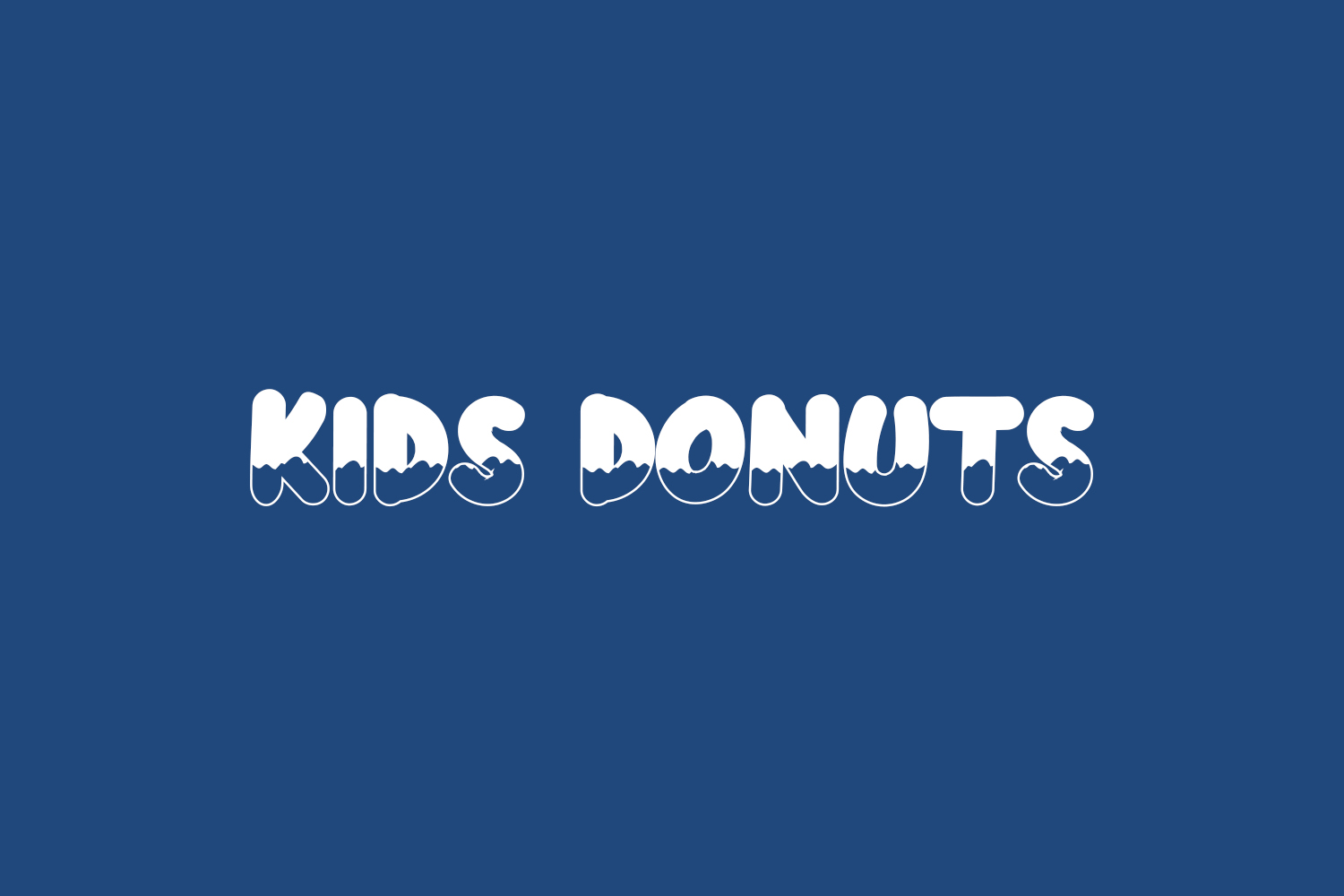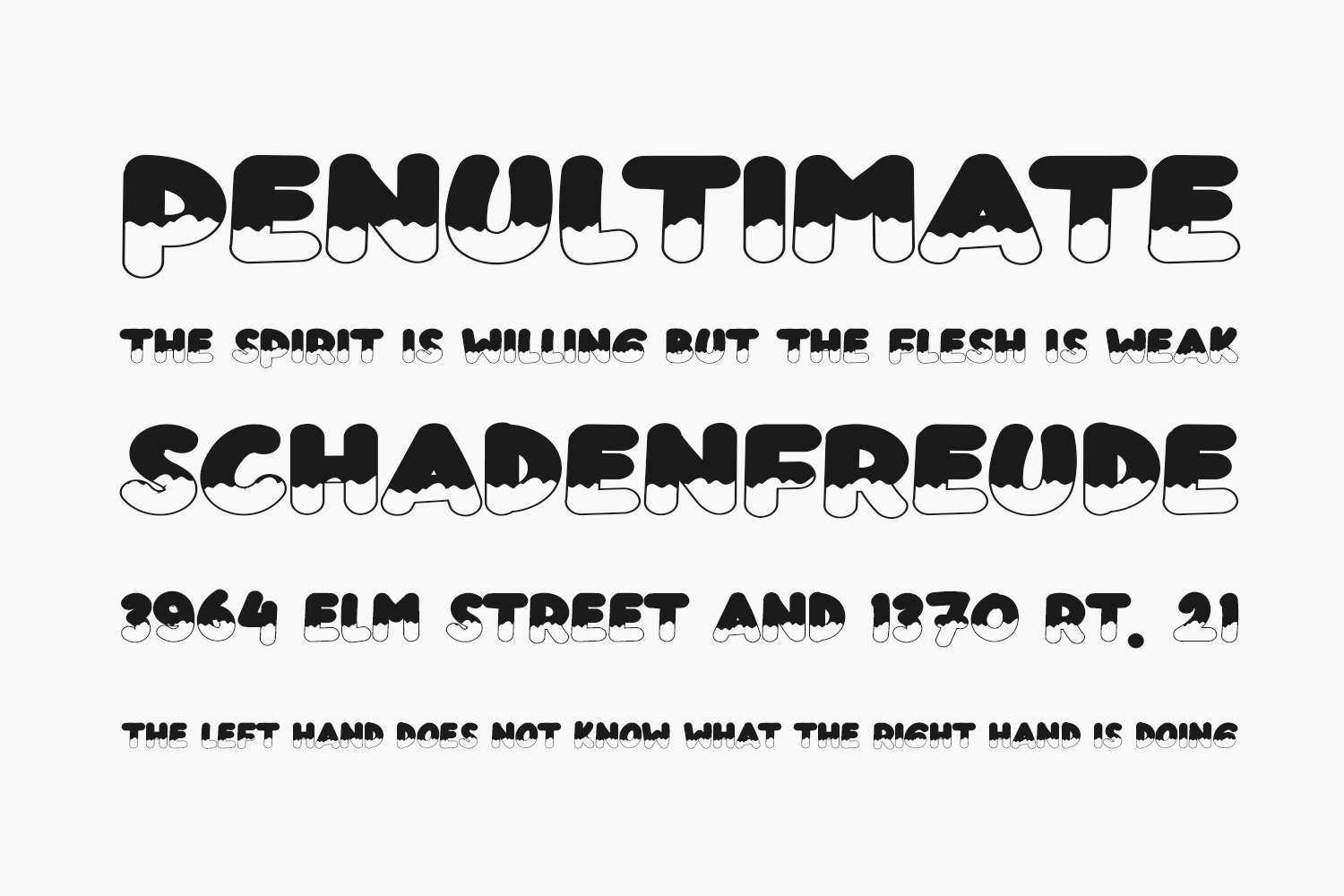
Introducing Kids Donuts Free Font, a delightful and whimsical display font that adds a cool and playful touch to your creative endeavors. With its chunky letters and friendly vibe, this typeface is the ultimate choice for children’s projects, games, movies, magazines, and more.
Designed specifically with kids in mind, Kids Donuts infuses a sense of joy and excitement into any visual medium. Whether you’re creating designs for educational materials, interactive games, or captivating magazines, this font brings a vibrant and lively atmosphere to your work. Kids Donuts Free Font is free for personal or commercial use.